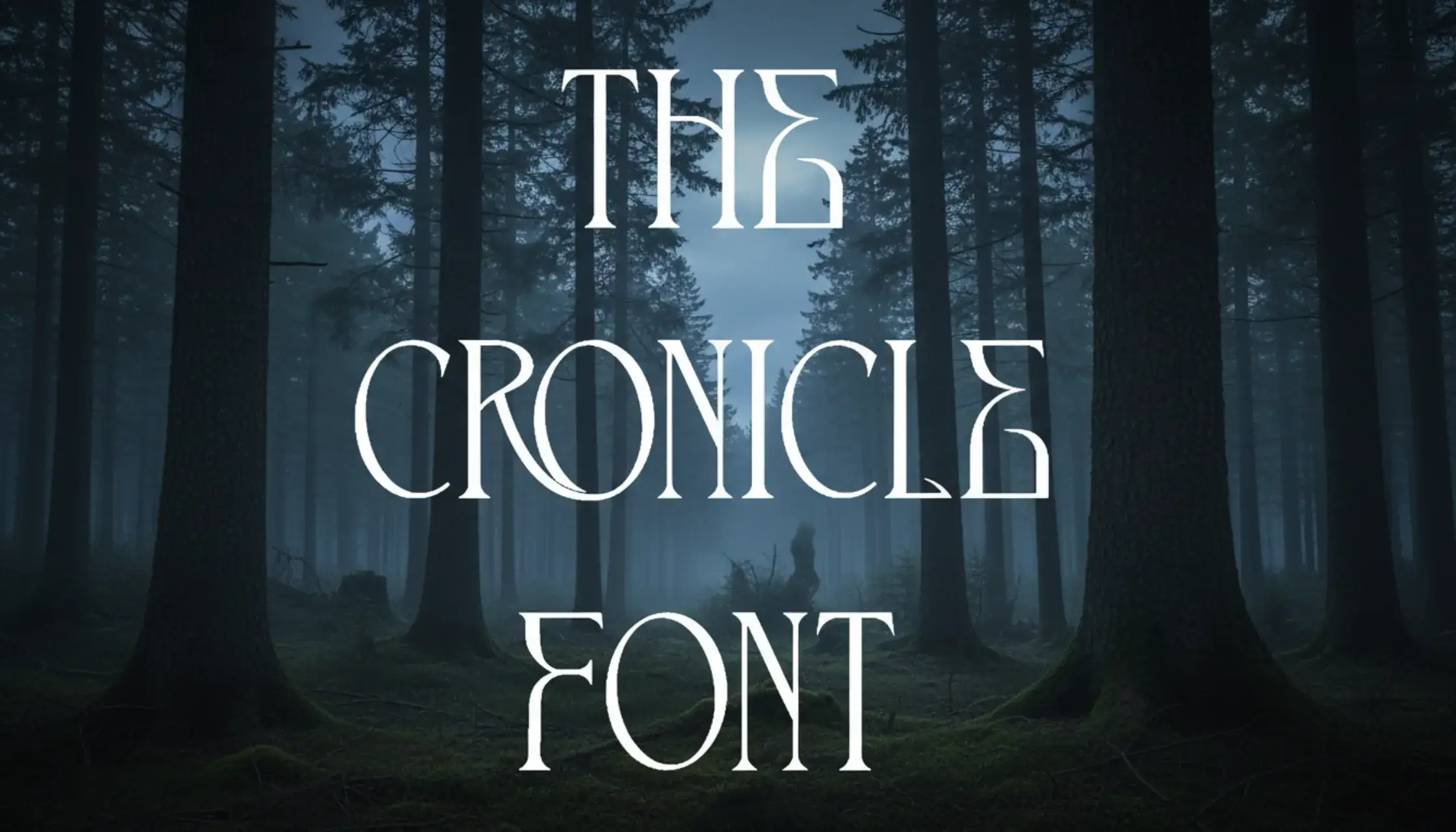
The Cronicle Font
The Cronicle
The Cronicle is a fancy font created by Heru Utama Putra and released through Storytype Studio. It's a decorative display font with plenty of personality, made to grab attention. It's a free download, and you can try it with your own text in the preview above first.
What You Can Type With The Cronicle
With complete upper and lowercase letters and all ten digits, The Cronicle is ready for real wording, not just a single headline. Everyday marks like &, !, ? and @ are there too. Thanks to its accented letters, it also works for Spanish, French, German, Portuguese and Italian, not just English.
Where The Cronicle Works Best
The Cronicle is a natural fit for posters, logos and eye-catching headlines. Use it for one standout word or headline and let simpler fonts handle the rest.
Does The Cronicle support accented letters?
Yes. The Cronicle includes the accented letters needed for Spanish, French, German, Portuguese and Italian, so it works for more than just English.